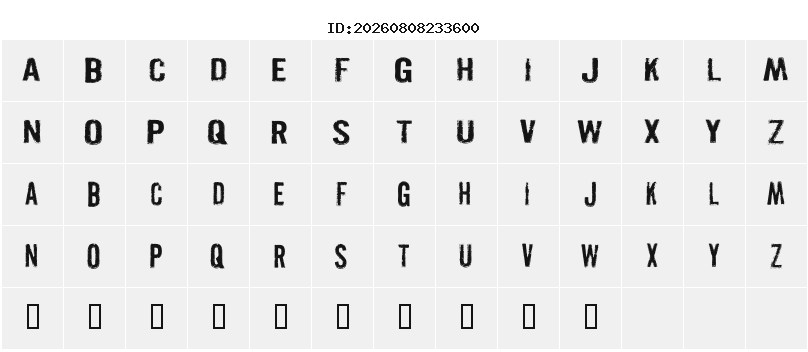
• Font Name: Pistolgrip
• Full Font Name: Pistolgrip
Pistolgrip.ttf is a modern, elegant sans-serif font designed for ultimate readability and visual harmony. Perfect for branding, headlines, web design, and print materials.